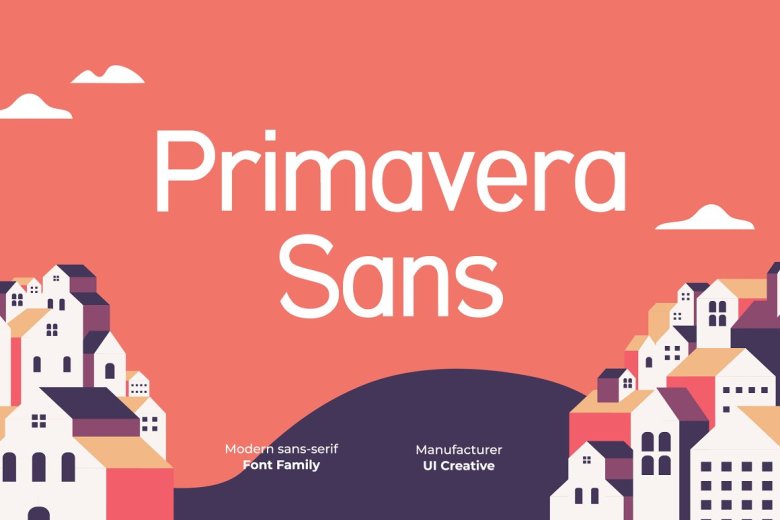
Primavera Sans Font
Primavera Sans Font is an elegant, stylish, and classy modern display font perfect for many different projects such as wedding invitations, typography quotes, magazine covers, etc.
Fashion branding and editorial design often depict masculine as well as feminine characteristics.
Primavera Sans Serif Font